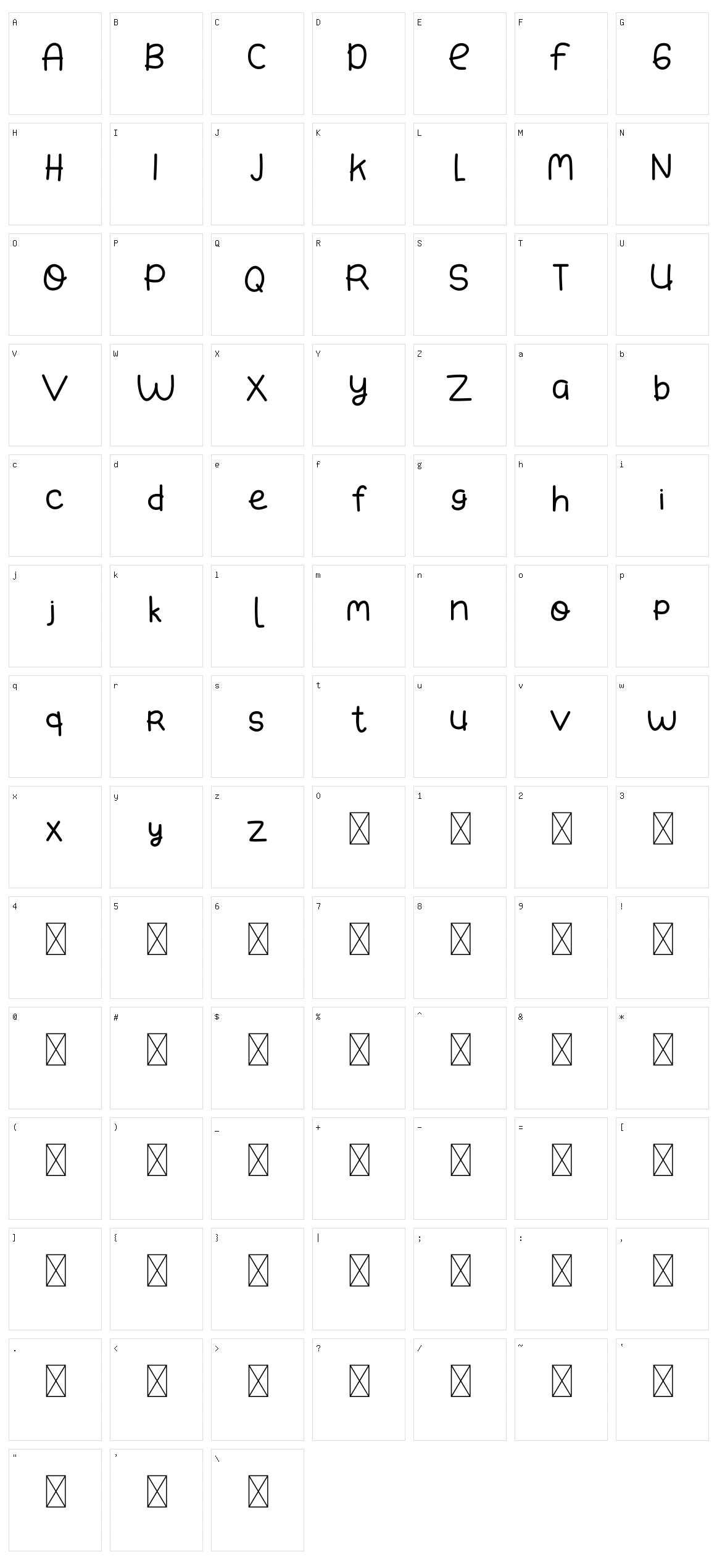
The free font Small Bunny is carefully designed by Illushvara, showcasing a thoughtful balance of creativity and usability and falls under the Script font style. When you download the ZIP file, it contains only 853.39 KB of font files, making it lightweight and quick to download. Please review the license details below to understand permitted usage and distribution rights. If license information is not available, we recommend using this font for personal projects only or contacting the author directly for commercial usage permissions.
SMALL BUNNY by Illushvara Design,